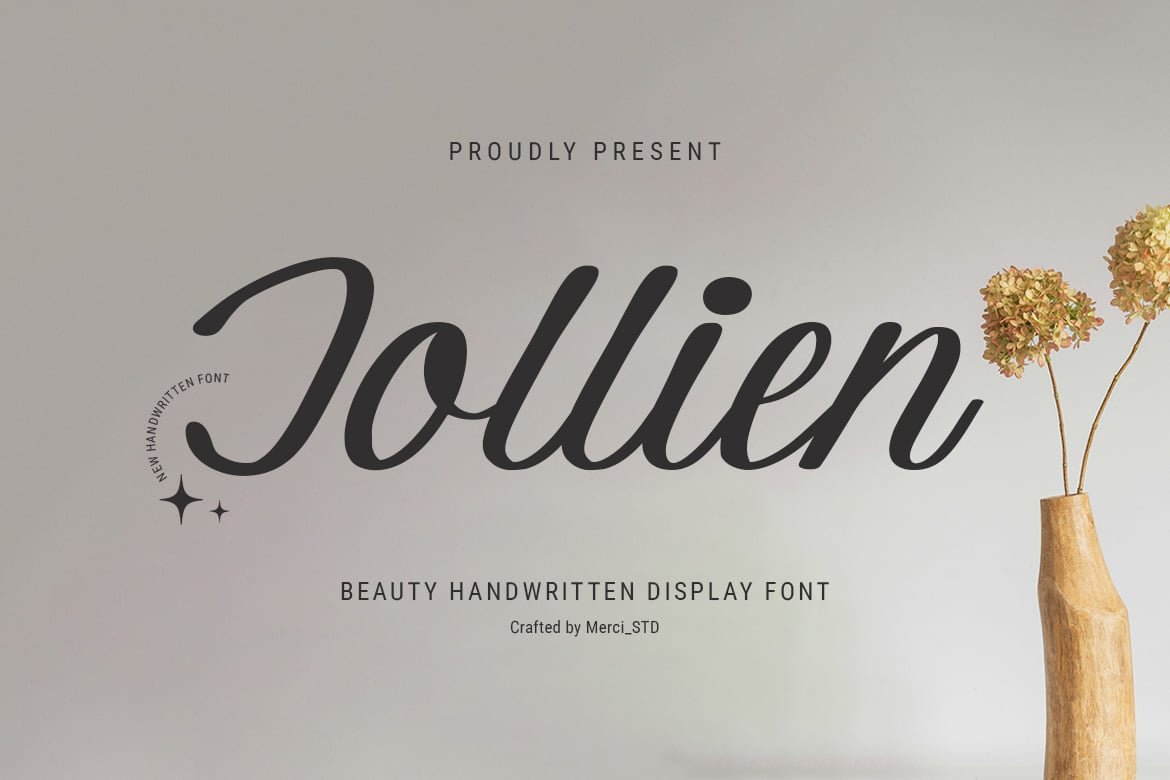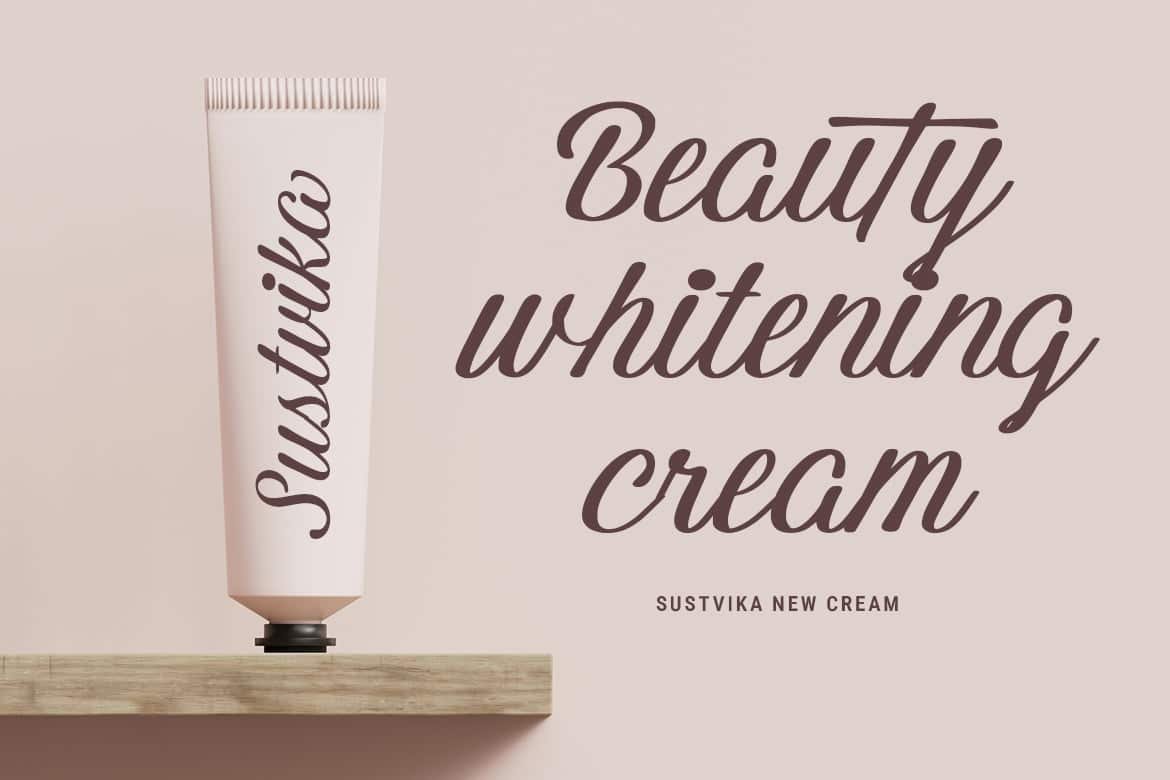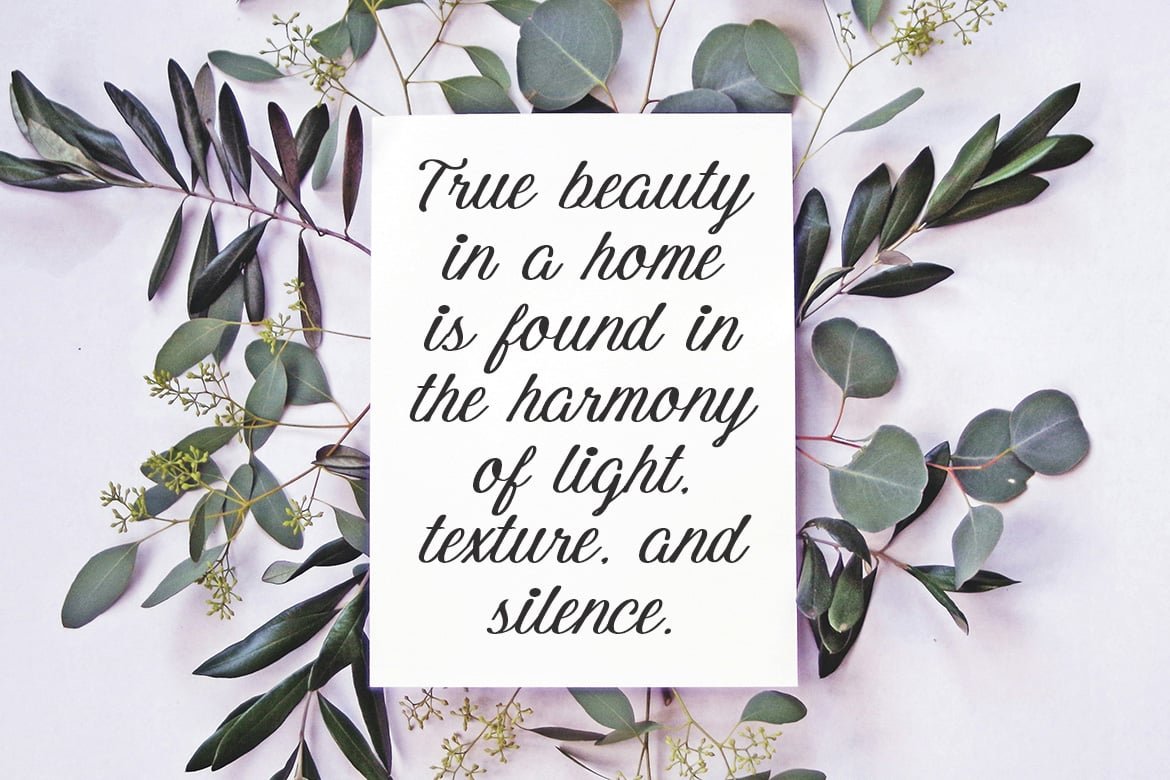
Jollien – Beauty Handwritten Script Font
Jollien is a stylish handwritten script font with smooth curves and modern elegance. Perfect for branding, invitations, social media, and feminine design projects.
- Uppercase Letters
- Ligature & Alternate Character
- Unique Hand-Drawn Style